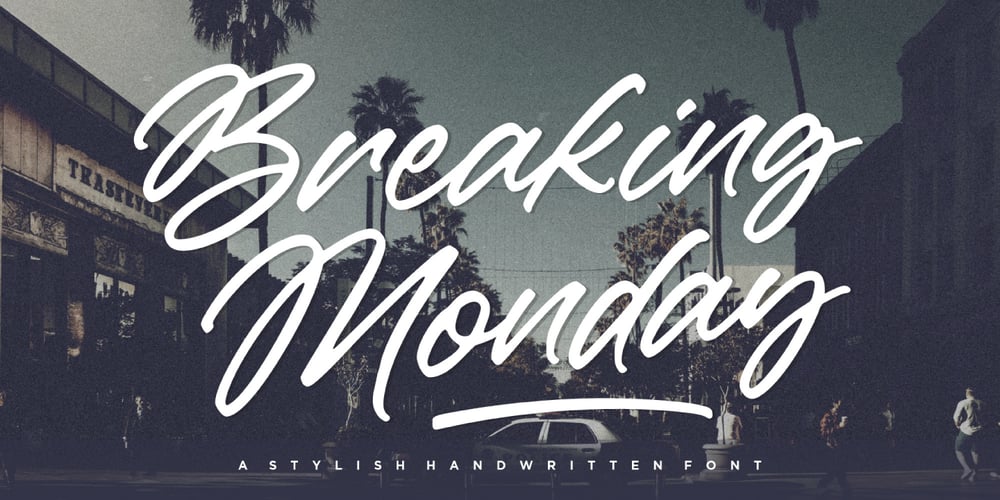
Breaking Monday Font Family was designed by Annas Alam Yahya and published by Letteralle. Breaking Monday contains 1 styles and family package options. Introducing Breaking Monday Font!Breaking Monday is a stunning signature script font. Breaking Monday is suitable for handwriting logos, T-shirts, merchandise, quotes, social media posts, advertising, and a lot more!Breaking Monday comes with an accent language.To access swashes just type _1, _2, etc. Thank You!